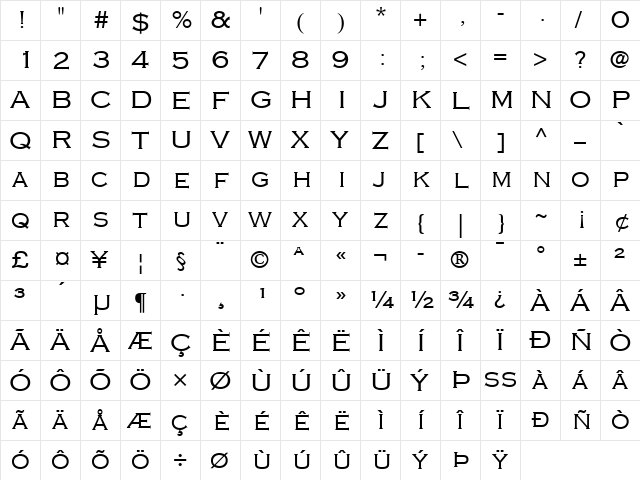
Copperplate LT 32ab Regular
Design Context for Copperplate LT 32ab Typeface
Copperplate LT 32ab is a composed and adaptable typeface that performs quietly and consistently across a wide range of design contexts. The delicate stroke weight brings airiness and refinement to layouts.